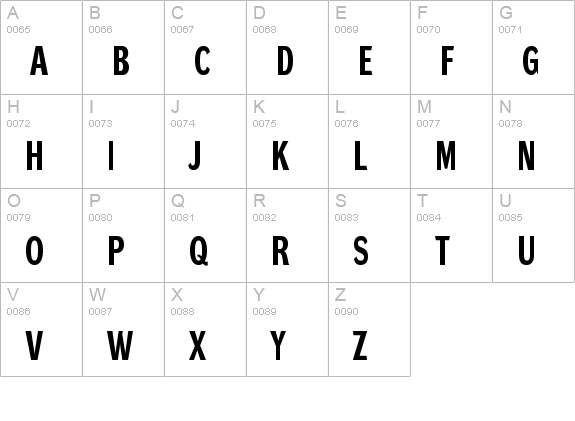
Dynamo H C font is a versatile and modern typeface that exudes a sense of energy and dynamism. With its bold and strong letterforms, this font is perfect for making a statement in any design project. The clean lines and unique character shapes of Dynamo H C font make it stand out from the crowd, adding a touch of sophistication and style to any text. What sets Dynamo H C font apart is that it is not only visually appealing but also free to download at FontsMarket.com. This means that you can easily access this stunning font and use it in your personal or commercial projects without any cost. Whether you're designing a website, creating a logo, or producing print materials, Dynamo H C font is a fantastic choice that will elevate your work to the next level.